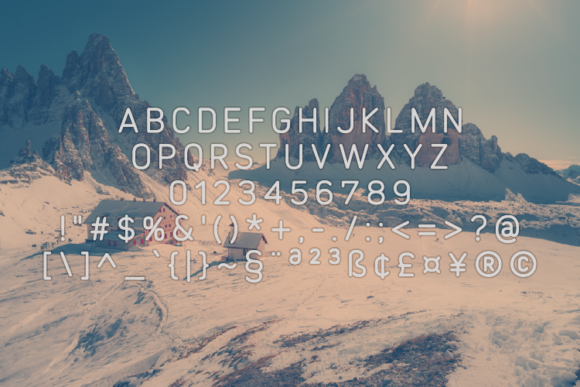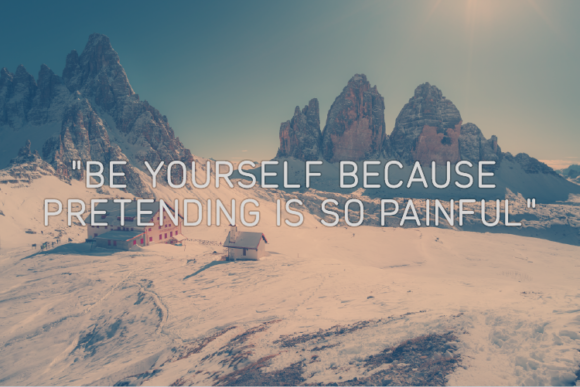
Introduction to Lune Font
Have you ever been stuck in a creative rut, staring at a blank canvas, wondering how to bring your idea to life? We’ve all been there. But what if you had the perfect design resource to spark your imagination? Enter the Lune Font, a stunning sans serif font that’s sure to elevate your next creative project.
With its sleek, modern aesthetic and high quality design, the Lune Font is the perfect addition to any designer’s toolkit. Whether you’re working on a freelance project or a personal passion, this versatile font can be easily matched to an incredibly large set of projects, making it a valuable asset for designers of all levels.
Key Features of Lune Font
- It features a unique, elegant design with a transparent background, allowing for seamless integration into various backgrounds.
- Lune Font includes 100 glyphs and supports multiple languages, making it a versatile design resource.
- The font’s unique characteristics include a mix of modern and vintage elements, making it perfect for projects that require a touch of sophistication and elegance.
Honest Review: Lune Font
I recently stumbled upon the Lune Font, and I must say it’s a fantastic addition to my design resources. As a designer, I’m always on the lookout for high-quality fonts that can elevate my creative projects. The Lune Font did not disappoint!
- ✨ The font is incredibly versatile, making it suitable for a wide range of design projects, from modern websites to elegant print materials.
- ✨ The transparent background option allows for seamless integration with various design elements, giving me more creative freedom.
- ⚠️ The font’s legibility can be affected by small text sizes, so it’s essential to use it wisely.
- ⚠️ Some users may find the font’s unique style too bold or overpowering for certain design projects.
Overall, I’m thoroughly impressed with the Lune Font. Its high quality and creative versatility make it an excellent addition to any designer’s toolkit. While it may have some limitations, the benefits far outweigh the drawbacks. If you’re looking for a reliable design resource, I highly recommend giving the Lune Font a try.
Lune Font
The Lune Font is a high-quality, creative project that offers a unique design resource for your next project. With its transparent background, you can easily integrate it into your design.
The Lune Font is perfect for:
- Designing logos and branding materials.
- Creating social media graphics and posts.
- Develop